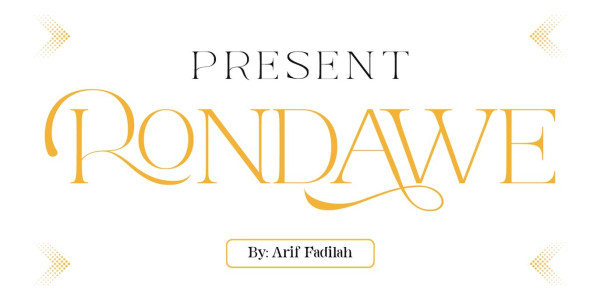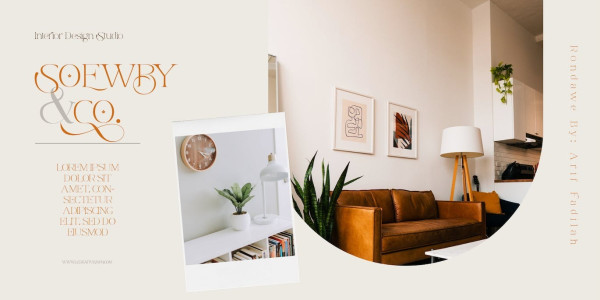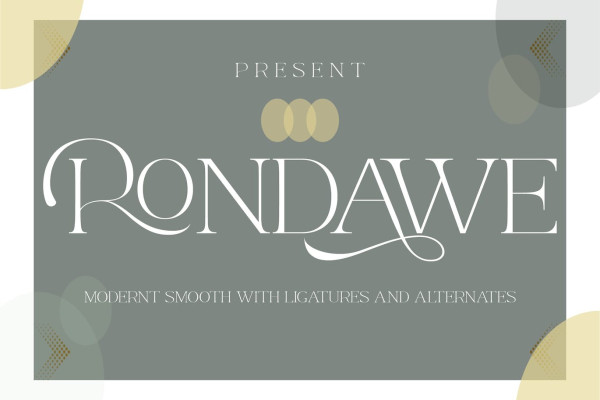
Rondawe Font
Rondawe Font ! add a touch of luxury and style to your projects with the new collection of fonts. It is highly recommended to enable OpenType features when using the font, in order to take advantage of its best features, namely the multitude of OpenType ligatures and alternatives.
This font is designed to pair well and lends itself to high-end branding, logo designs, product packaging, and invitation designs. It creates perfect matching contrast by combining RondaweSerif and all Script fonts.